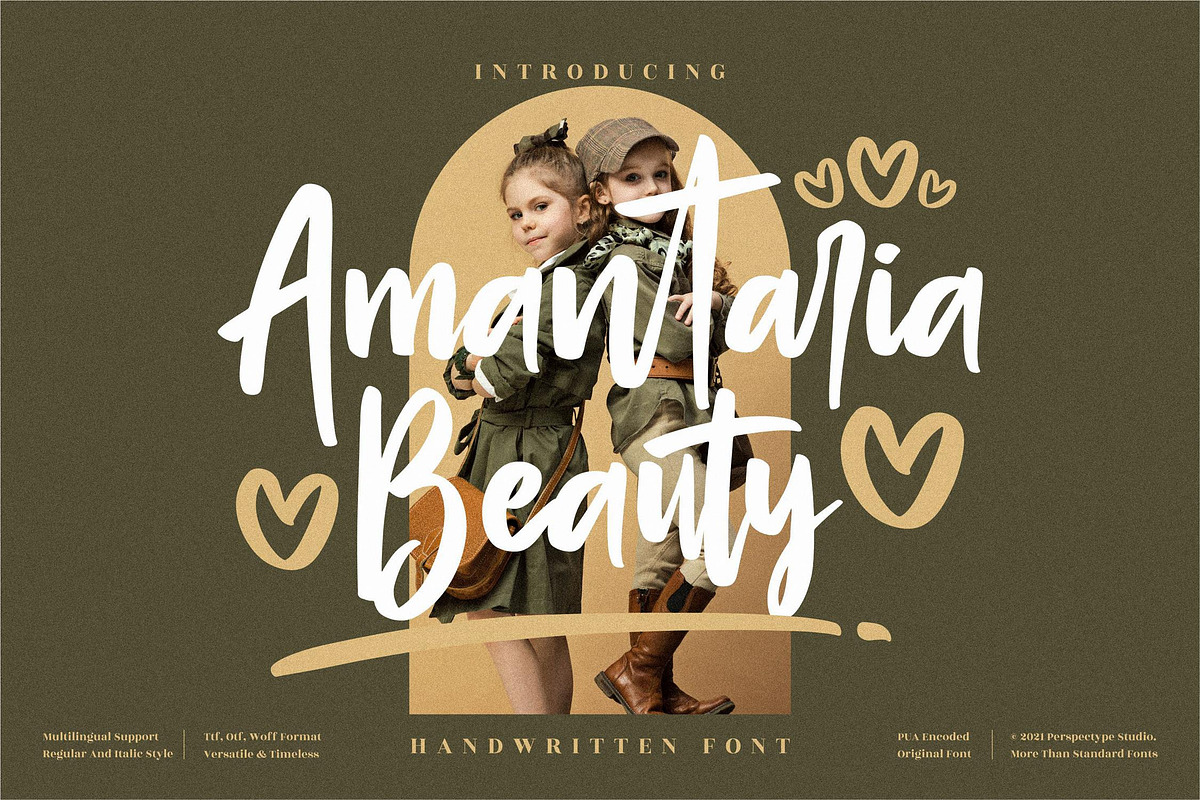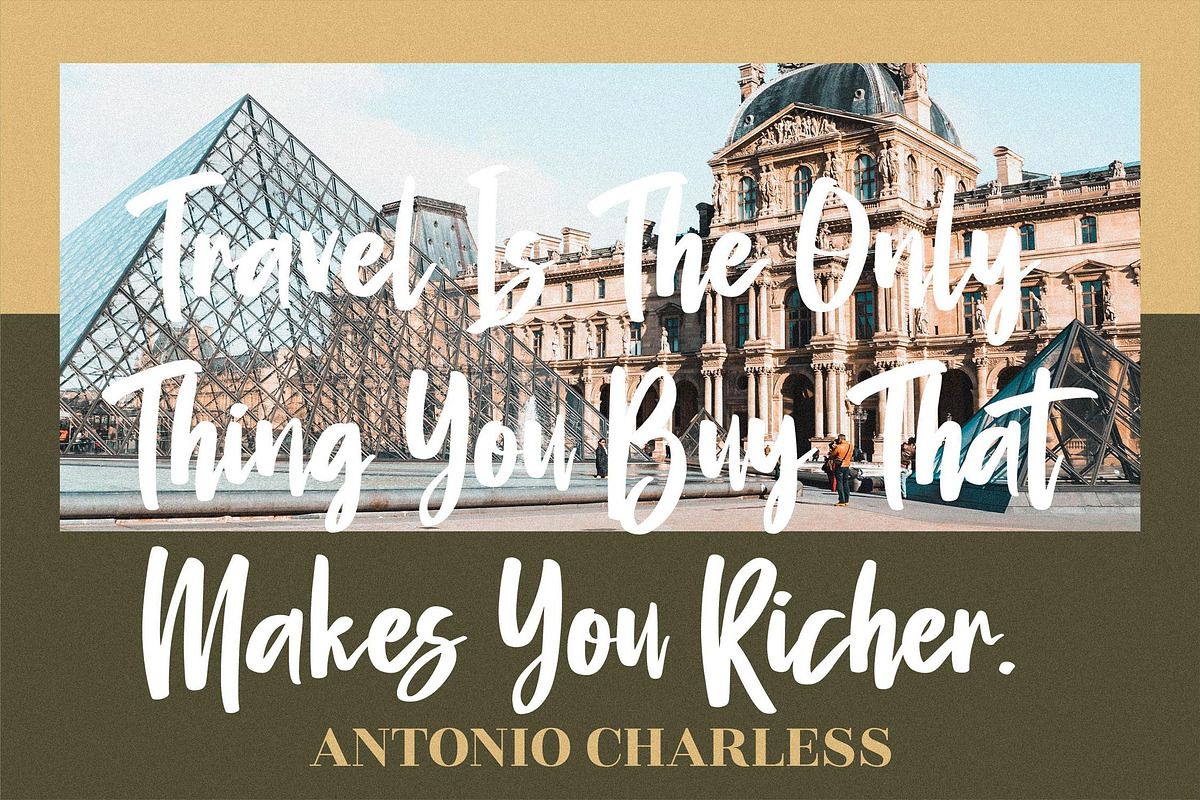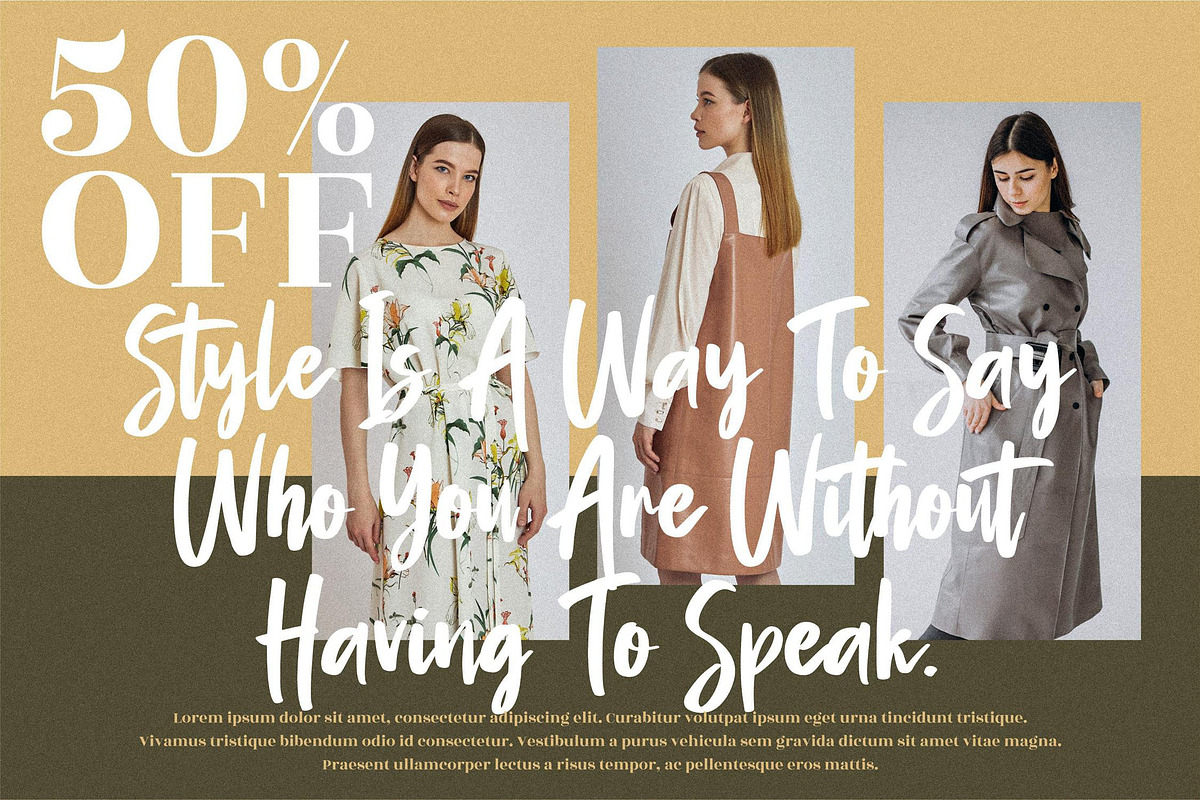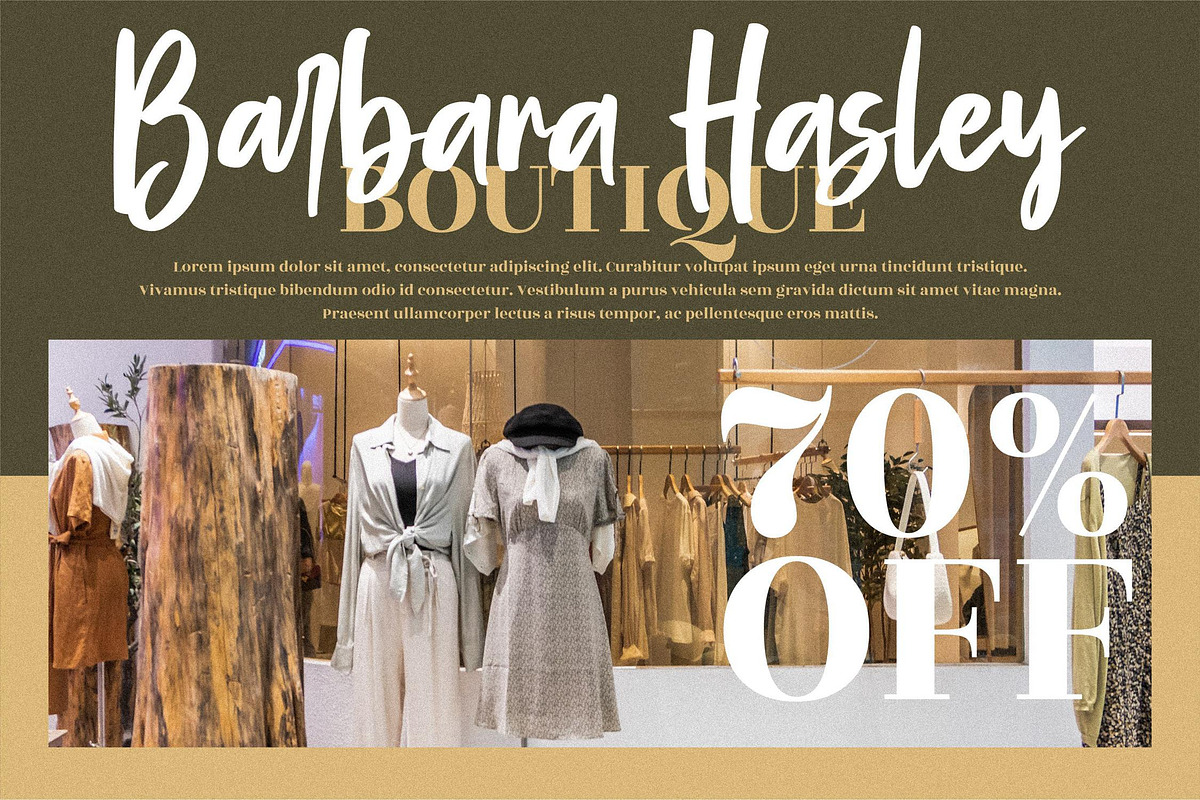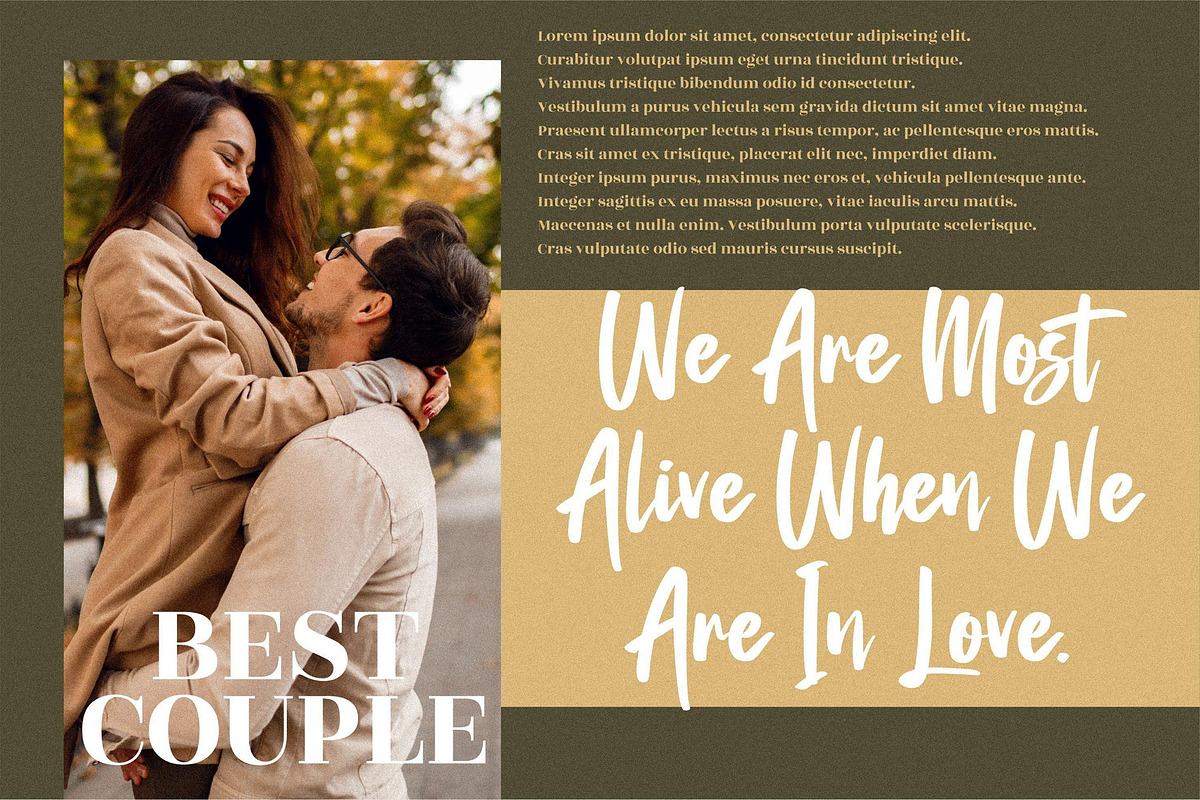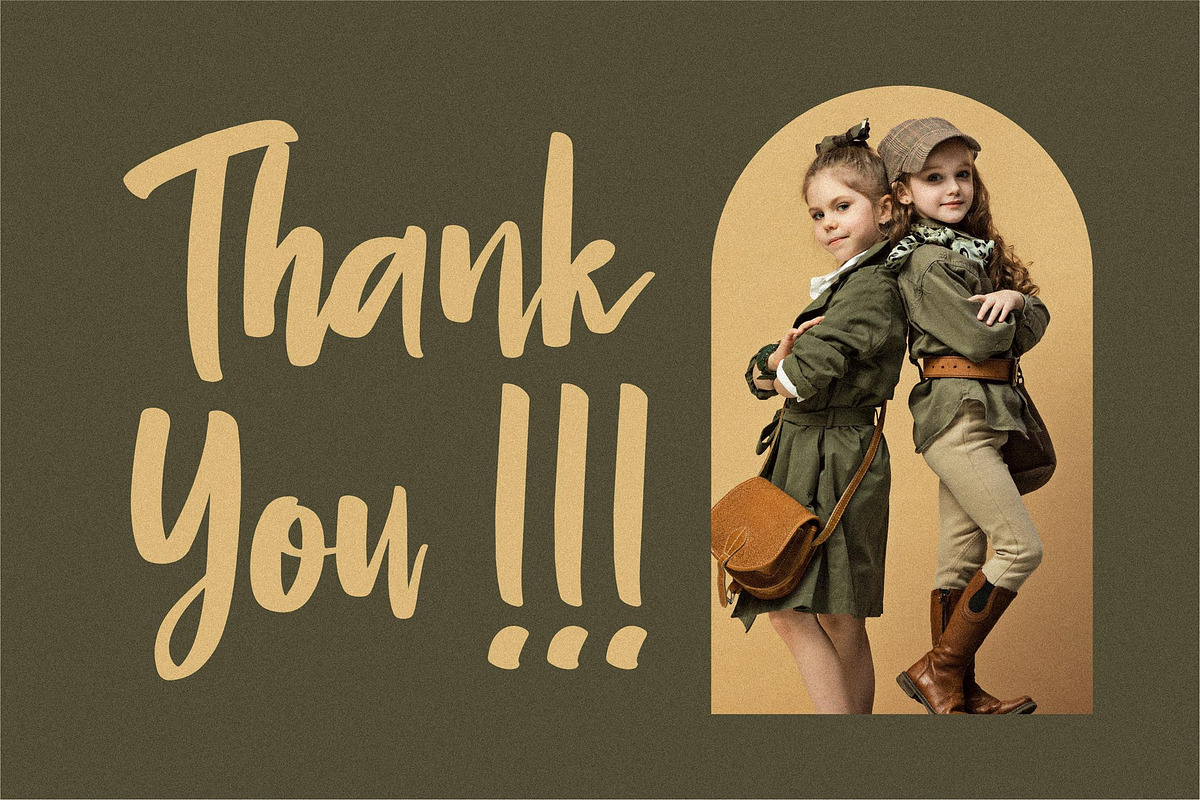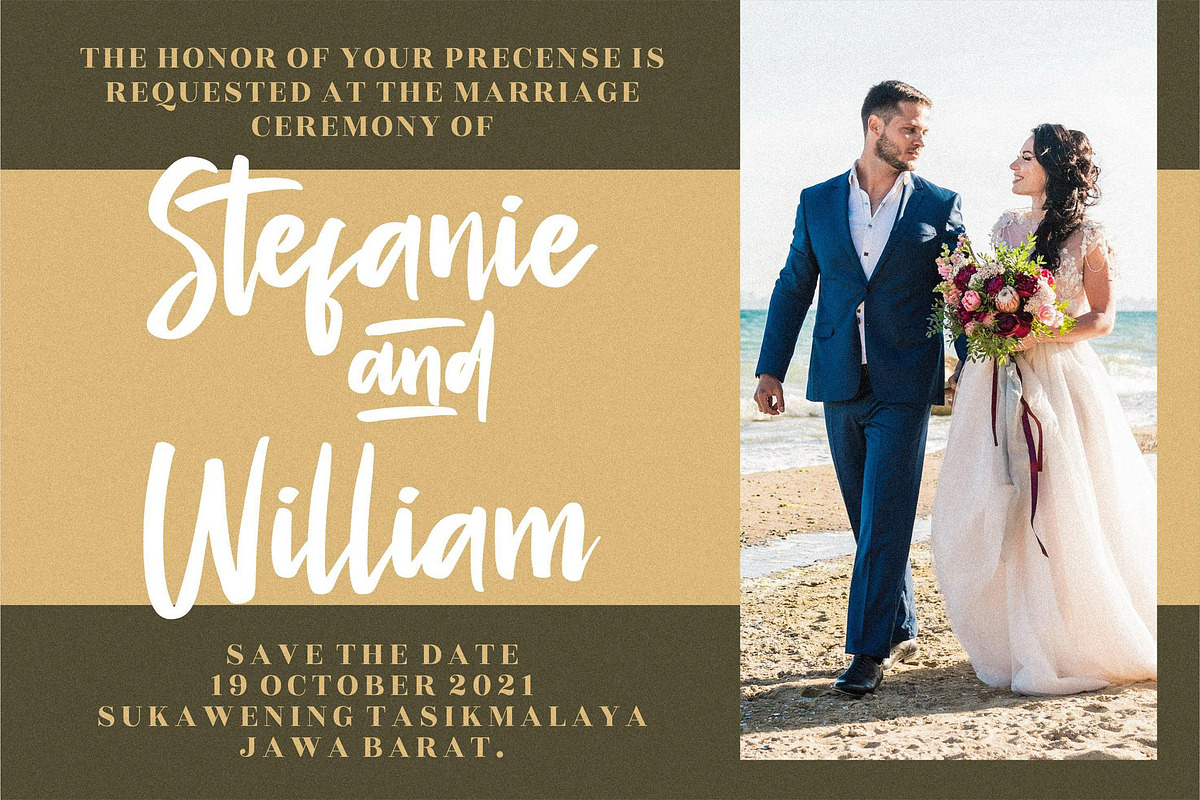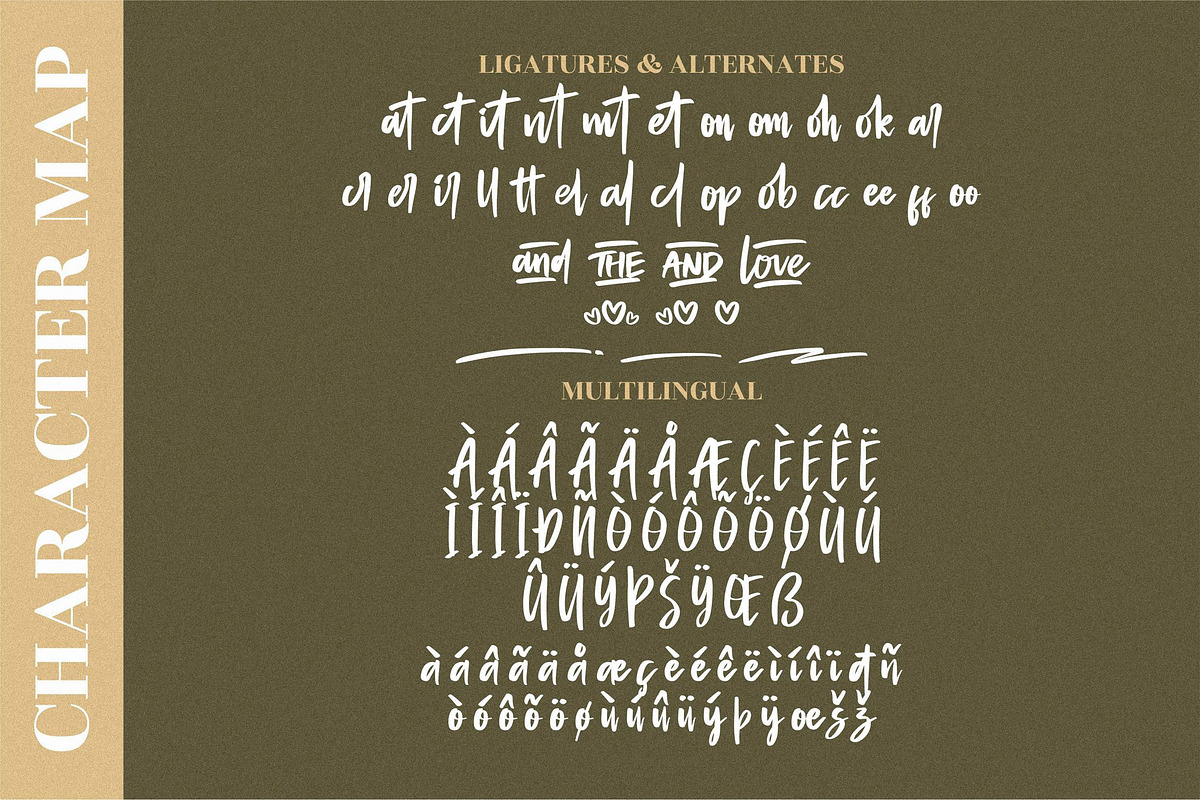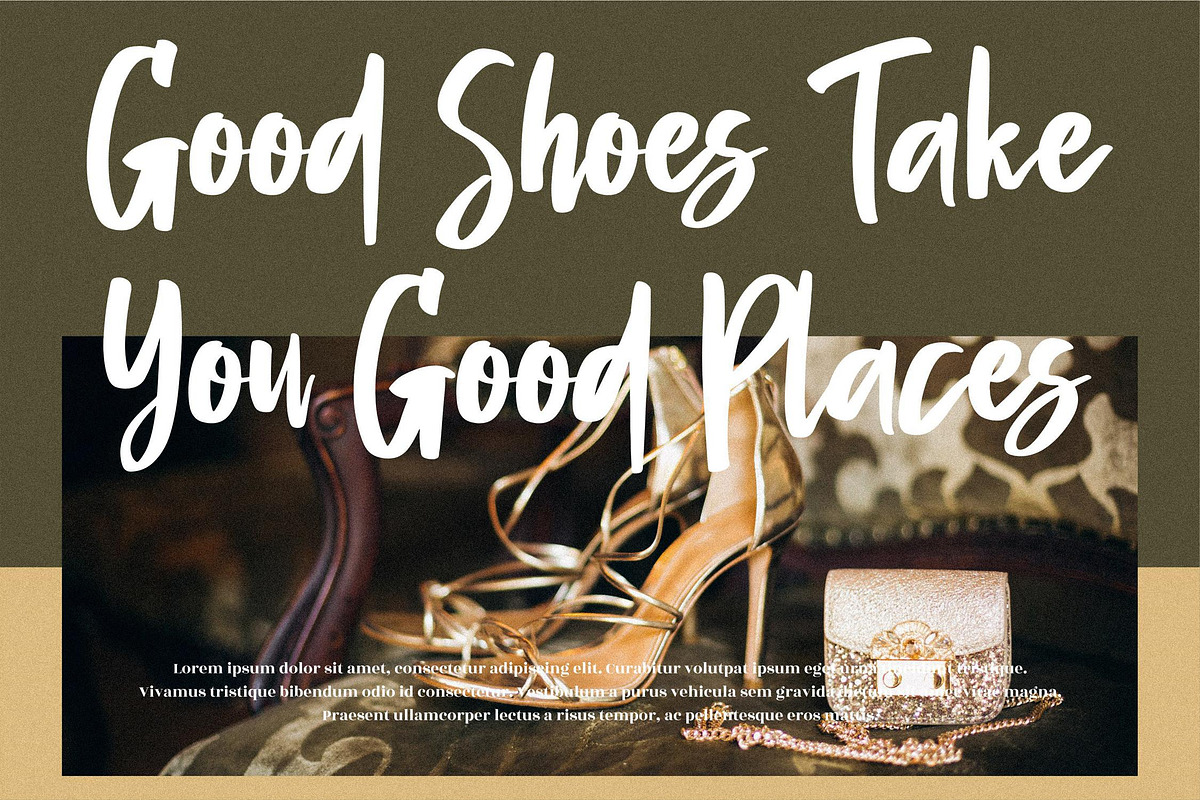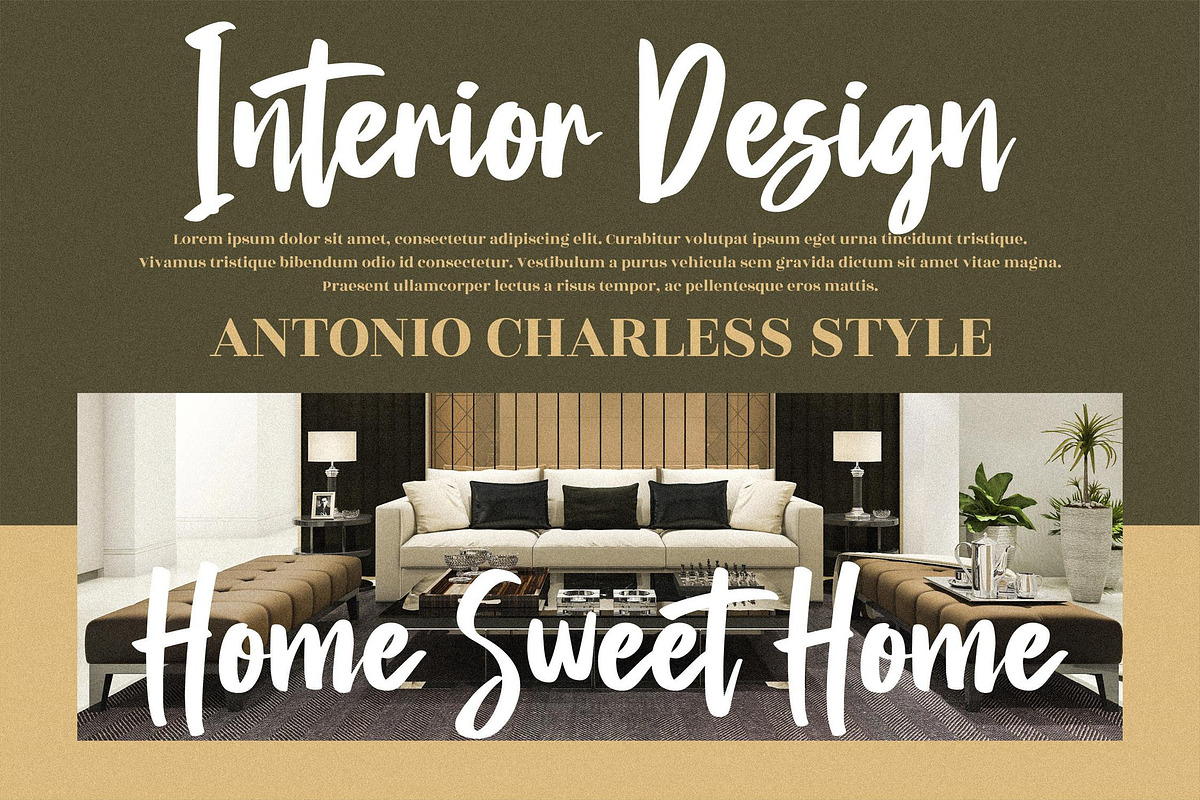
Amantaria Beauty Handwritten LS
Hi ladies & gentlemen, this is one of our fonts suitable to complement your digital and printed creative products. This font is perfect for posters, social media posts, branding, personal projects, etc.